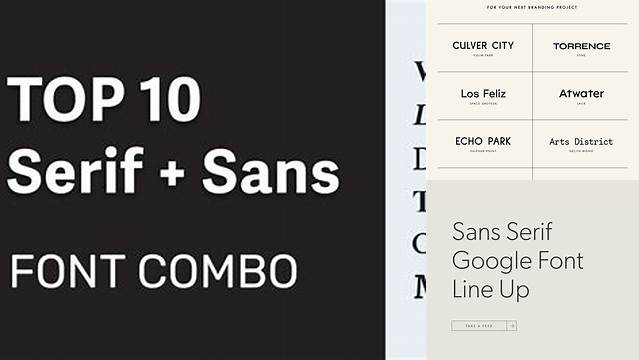
10 Best Font Combinations: Serif & Sans-Serif (Google Fonts)
Choosing the right fonts can be a game-changer for your website or design project. The perfect font combination not only enhances readability but also elevates the overall aesthetic. If you're looking for inspiration, Google Fonts offers a treasure trove of options. Today, guys, we're diving into the 10 best serif and sans-serif font combinations on Google Fonts that will make your designs shine. Let's explore these fantastic pairings!
1. Playfair Display & Montserrat
Playfair Display and Montserrat is a classic combination that exudes elegance and modernity. This pairing is a favorite among designers for its versatility and timeless appeal. The contrast between the serif and sans-serif fonts creates a visually pleasing hierarchy that enhances readability and adds a touch of sophistication to any project. Whether you're designing a website, a branding kit, or marketing materials, Playfair Display and Montserrat offer a polished and professional look. The Playfair Display font, with its high contrast and graceful serifs, is perfect for headings and titles, grabbing attention and conveying a sense of luxury. On the other hand, Montserrat, a clean and geometric sans-serif, is ideal for body text and smaller details, ensuring readability without sacrificing style. The combination is like a well-tailored suit – sharp, stylish, and always in vogue. Using these fonts together, you can create designs that are both eye-catching and easy to read, which is a win-win in the design world. So, if you're aiming for a blend of sophistication and modernity, Playfair Display and Montserrat might just be your perfect match. Remember, the goal is to make your content not only look good but also feel accessible and engaging for your audience. This pairing does exactly that, making it a top choice for designers everywhere.
2. Merriweather & Open Sans
Merriweather and Open Sans is a highly readable and versatile combination, perfect for websites and digital content. This pairing offers a clean and accessible aesthetic, making it a go-to choice for projects that prioritize clarity and user experience. The Merriweather serif font, designed specifically for on-screen reading, features a sturdy structure and slightly condensed letterforms, enhancing readability in long blocks of text. Its warm and inviting feel makes it an excellent option for body text, ensuring that your readers can comfortably engage with your content. Complementing Merriweather, Open Sans is a minimalist and friendly sans-serif font. Known for its neutral yet approachable character, Open Sans works wonderfully for headings, subheadings, and navigational elements. Its clean lines and open forms contribute to a modern and uncluttered design, ensuring that your website or document looks polished and professional. Together, Merriweather and Open Sans create a harmonious balance, where the serif font adds a touch of warmth and the sans-serif provides a modern edge. This combination is particularly effective for blogs, articles, and any content-heavy website where readability is paramount. By choosing Merriweather and Open Sans, you're not just selecting fonts; you're crafting an experience that invites your audience to read and engage with your message effortlessly. Think of it as creating a welcoming space for your words, where clarity and style go hand in hand.
3. Raleway & Roboto
Raleway and Roboto offer a sleek and modern look, ideal for contemporary designs. This combination is favored for its clean lines and sophisticated appeal, making it a great fit for tech startups, corporate websites, and any project that aims to convey a sense of innovation and professionalism. Raleway, a stylish sans-serif font with a geometric touch, is perfect for headings and display purposes. Its elegant letterforms and distinctive character add a touch of refinement to your design, making it stand out without being overly assertive. Roboto, another sans-serif font, complements Raleway beautifully with its clean and highly readable structure. Designed with on-screen reading in mind, Roboto works exceptionally well for body text, ensuring that your content is both accessible and visually appealing. The pairing of Raleway and Roboto creates a harmonious balance between style and functionality. While Raleway adds a touch of sophistication, Roboto ensures that the overall design remains grounded and easy to read. This combination is particularly effective for websites and applications that require a modern, minimalist aesthetic. By choosing Raleway and Roboto, you're not just picking fonts; you're crafting a visual identity that speaks to the future. Think of it as building a brand that's both contemporary and approachable, where innovation and user experience come together seamlessly. The result is a design that's not only visually striking but also highly functional, making it a smart choice for projects that aim to make a lasting impression.
4. Oswald & Lato
Oswald and Lato is a bold and modern pairing, excellent for headlines and body text alike. This combination is known for its strong visual presence and excellent readability, making it a popular choice for a wide range of design projects. Oswald, a condensed sans-serif font, commands attention with its assertive letterforms and impactful presence. It's ideal for headlines and titles, adding a touch of modernity and sophistication to your design. Lato, a sleek and semi-rounded sans-serif, complements Oswald perfectly. Its clean lines and open forms make it highly readable, even in smaller sizes. Lato works exceptionally well for body text, ensuring that your content is both engaging and easy to digest. The combination of Oswald and Lato creates a dynamic contrast that enhances the overall visual appeal of your project. The boldness of Oswald draws the eye, while the clarity of Lato ensures that your message is communicated effectively. This pairing is particularly effective for websites, posters, and marketing materials that require a strong and contemporary look. By choosing Oswald and Lato, you're not just selecting fonts; you're making a statement. Think of it as crafting a visual identity that's both modern and approachable, where boldness and clarity work together to create a lasting impression. Whether you're designing a website or a print campaign, Oswald and Lato will help you convey your message with style and impact.
5. Roboto Slab & Montserrat
Roboto Slab and Montserrat is a sturdy and modern combination, perfect for a professional and reliable look. This pairing strikes a balance between warmth and authority, making it a versatile choice for a variety of design projects, from corporate websites to editorial content. Roboto Slab, a slab serif font, offers a contemporary twist on the classic serif style. Its strong, block-like serifs convey a sense of stability and trustworthiness, making it ideal for headlines and branding elements. Montserrat, a clean and geometric sans-serif, complements Roboto Slab beautifully. Its modern and approachable character makes it perfect for body text and smaller details, ensuring readability without sacrificing style. The combination of Roboto Slab and Montserrat creates a harmonious blend of strength and clarity. The slab serif adds a touch of formality, while the sans-serif maintains a modern and accessible feel. This pairing is particularly effective for projects that require a balance between professionalism and approachability, such as business websites, reports, and marketing materials. By choosing Roboto Slab and Montserrat, you're not just selecting fonts; you're crafting a visual identity that inspires confidence and trust. Think of it as building a brand that's both reliable and contemporary, where tradition and innovation come together seamlessly. Whether you're designing a website or a presentation, Roboto Slab and Montserrat will help you convey your message with authority and style.
6. Arvo & Open Sans: A Readable Duo
Arvo and Open Sans create a readable and friendly aesthetic, perfect for blogs and websites with a focus on content. This combination offers a blend of warmth and clarity, making it a great choice for projects that prioritize user engagement and readability. Arvo, a slab-serif font, adds a touch of character and personality with its geometric design and slightly quirky serifs. It works well for headings and subheadings, drawing attention and adding a unique flair to your design. Open Sans, a clean and minimalist sans-serif, complements Arvo beautifully. Its open letterforms and neutral character make it highly readable, especially in long blocks of text. Open Sans is ideal for body text, ensuring that your content is both accessible and engaging. The pairing of Arvo and Open Sans creates a harmonious balance between style and functionality. Arvo's distinctive character adds visual interest, while Open Sans ensures that the overall design remains clean and easy to read. This combination is particularly effective for blogs, online magazines, and websites that prioritize a user-friendly reading experience. By choosing Arvo and Open Sans, you're not just selecting fonts; you're crafting a visual experience that invites your audience to read and explore your content. Think of it as creating a welcoming space for your words, where personality and clarity go hand in hand.
7. Lora & Montserrat: Elegant Simplicity
Lora and Montserrat offer an elegant and simple pairing, perfect for projects that require a touch of sophistication and modernity. This combination is favored for its clean lines and refined aesthetic, making it a great fit for design projects ranging from branding to editorial layouts. Lora, a well-balanced serif font with roots in calligraphy, adds a touch of classic elegance to your design. Its flowing letterforms and delicate serifs make it ideal for headings, titles, and body text alike. Montserrat, a geometric sans-serif font, complements Lora beautifully. Its clean lines and modern character provide a strong contrast to Lora's elegance, creating a harmonious balance between tradition and modernity. This pairing is particularly effective for websites, magazines, and branding materials that require a polished and sophisticated look. The combination of Lora and Montserrat is versatile and can be used in a variety of contexts, from minimalist designs to more complex layouts. The key is to let the fonts speak for themselves, allowing their unique qualities to enhance the overall message and aesthetic. By choosing Lora and Montserrat, you're not just selecting fonts; you're crafting a visual identity that communicates sophistication and style. Think of it as building a brand that's both timeless and contemporary, where elegance and simplicity come together seamlessly.
8. Playfair Display & Fira Sans: A Stylish Contrast
Playfair Display and Fira Sans combine to create a stylish contrast, ideal for designs that aim to be both elegant and contemporary. This pairing is a favorite for its visual appeal and readability, making it a great choice for websites, magazines, and branding projects. Playfair Display, a high-contrast serif font, exudes sophistication and elegance. Its dramatic letterforms and graceful serifs make it perfect for headlines, titles, and other display purposes. Fira Sans, a clean and modern sans-serif, complements Playfair Display beautifully. Its open letterforms and straightforward design ensure readability in a variety of contexts, from body text to captions. The pairing of Playfair Display and Fira Sans creates a dynamic balance between style and functionality. The serif font adds a touch of luxury, while the sans-serif ensures that the overall design remains grounded and accessible. This combination is particularly effective for projects that require a balance between visual impact and readability. By choosing Playfair Display and Fira Sans, you're not just selecting fonts; you're crafting a visual identity that communicates style and professionalism. Think of it as building a brand that's both elegant and contemporary, where beauty and clarity go hand in hand.
9. Merriweather Sans & Montserrat: Modern Readability
Merriweather Sans and Montserrat offer modern readability, perfect for content-heavy websites and digital publications. This combination focuses on clarity and user experience, making it a great choice for projects that prioritize readability without sacrificing style. Merriweather Sans, a sans-serif variant of the popular Merriweather serif font, is designed specifically for on-screen reading. Its sturdy letterforms and open shapes ensure that text remains legible, even at smaller sizes. Montserrat, a geometric sans-serif font, complements Merriweather Sans beautifully. Its clean lines and modern character provide a visual contrast that enhances the overall design. Montserrat works well for headings, subheadings, and navigational elements, adding a touch of sophistication to your project. The pairing of Merriweather Sans and Montserrat creates a harmonious blend of functionality and style. The sans-serif fonts work together to provide a consistent and readable experience, while their unique characteristics add visual interest. This combination is particularly effective for websites, blogs, and digital publications that require a clean and modern aesthetic. By choosing Merriweather Sans and Montserrat, you're not just selecting fonts; you're crafting a reading experience that's both enjoyable and accessible. Think of it as building a digital space that welcomes your audience and encourages them to engage with your content.
17. Letter Spacing and Kerning
Letter spacing and kerning are two typographic techniques that involve adjusting the space between letters to improve readability and visual appeal. While they may seem like minor details, these adjustments can have a significant impact on the overall quality of your designs. Understanding the difference between letter spacing and kerning, and knowing when to use each, is essential for any designer. Letter spacing, also known as tracking, refers to the uniform adjustment of space between all letters in a block of text. Increasing letter spacing can make text feel more open and airy, while decreasing letter spacing can make it feel more compact. Letter spacing is often used to fine-tune the overall appearance of a typeface, particularly at larger sizes. For example, a heading set in a bold font may benefit from a slight reduction in letter spacing to prevent the letters from feeling too crowded. Kerning, on the other hand, is the selective adjustment of space between individual letter pairs. Certain letter combinations, such as